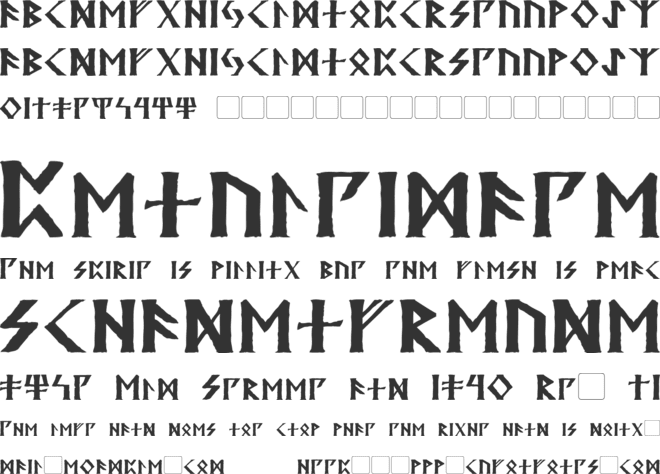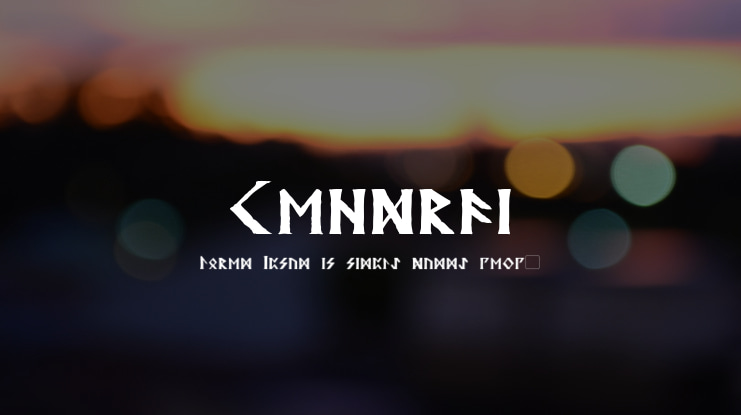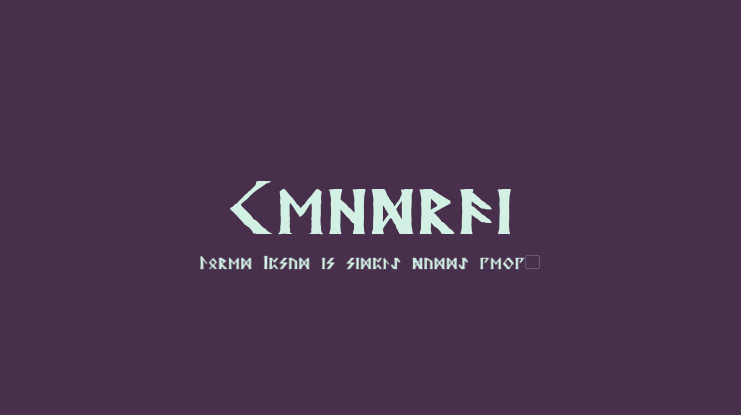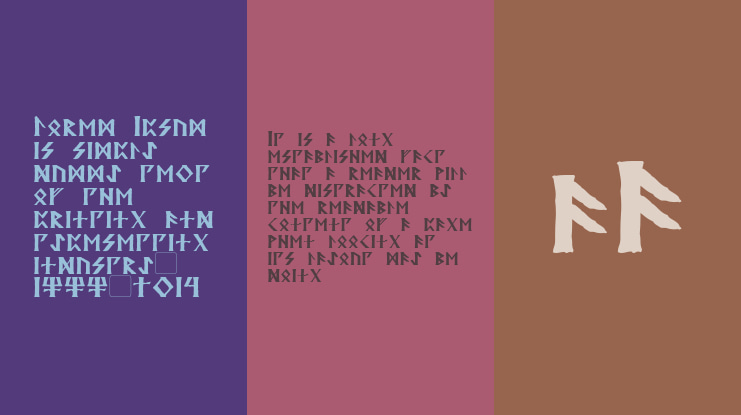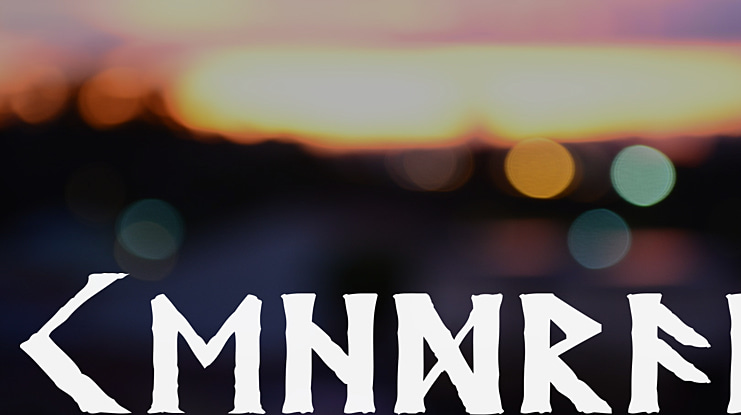
Kehdrai Font Family
Kehdrai is a classic, gothic-style runic typeface. This particular version is based on the written Dwarven languages described in Kenzer and Co.'s Kingdoms of Kalamar. Includes all canon characters. Includes bold, italic, and bold-italic weights.